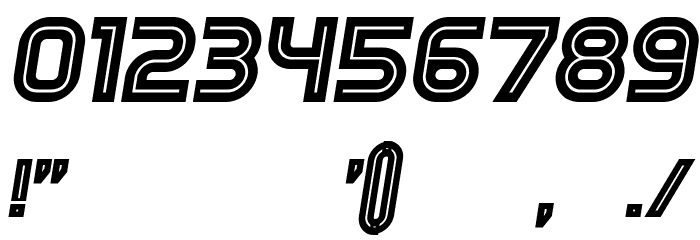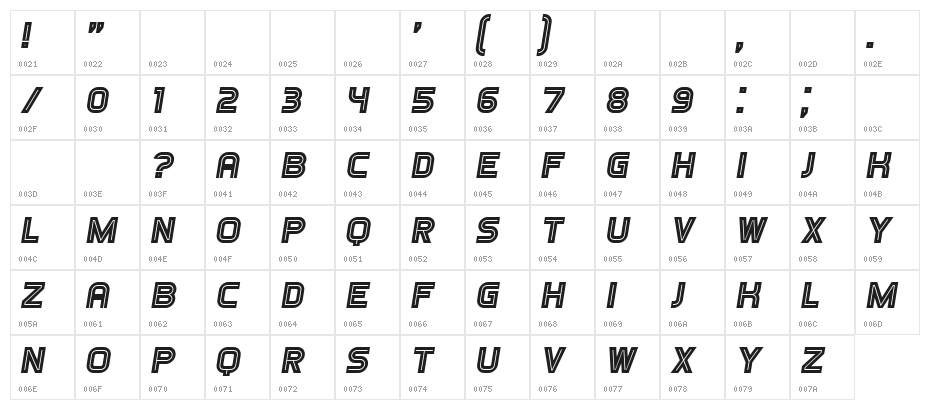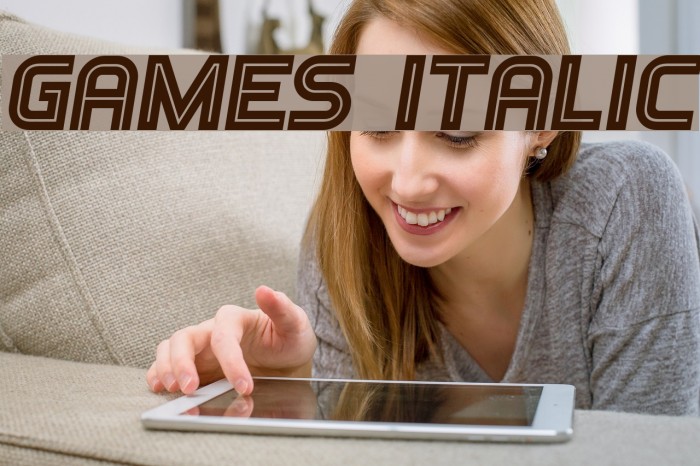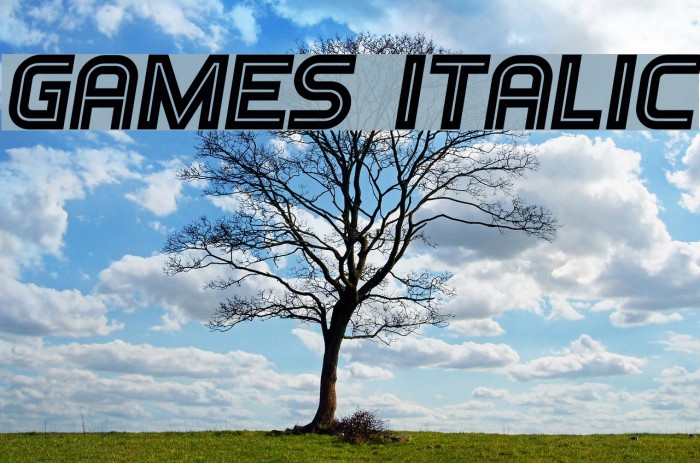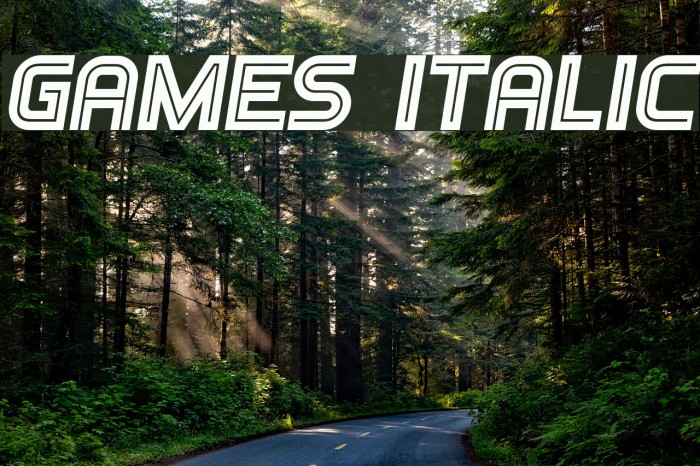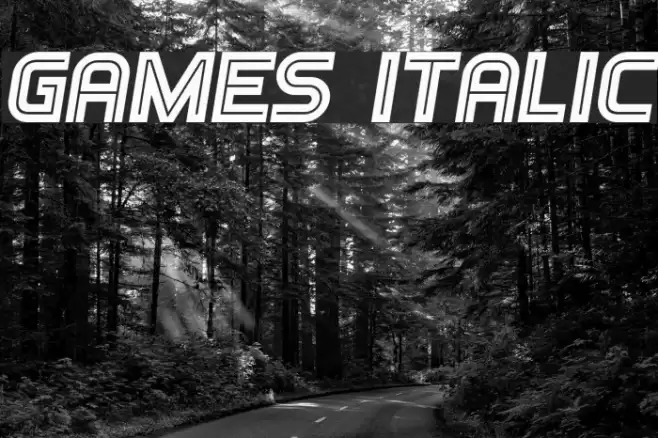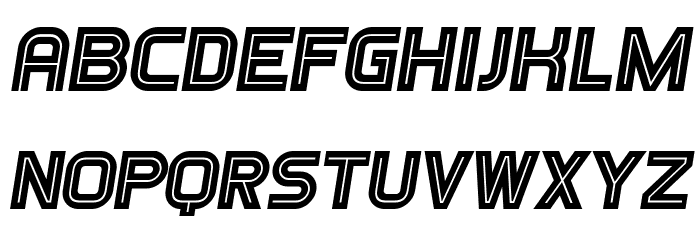
Games Italic Font
Games Italic Description
This font features a bold, dynamic style with a distinct italic slant, giving it a sense of motion and energy. The characters are outlined, creating a layered effect that adds depth and dimension. The uppercase and lowercase letters maintain a consistent design, with clean lines and sharp angles. The numerals are equally bold and follow the same italicized, outlined style. Special characters are included, maintaining the cohesive look of the font. This typeface is ideal for projects that require a strong, impactful presence.
| Proposed Projects | Ideal for sports branding, video game titles, dynamic posters, and energetic advertisements. |